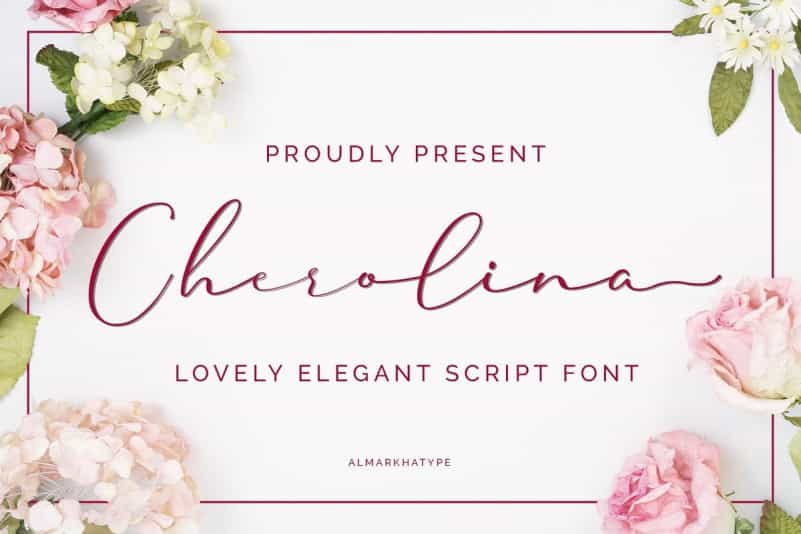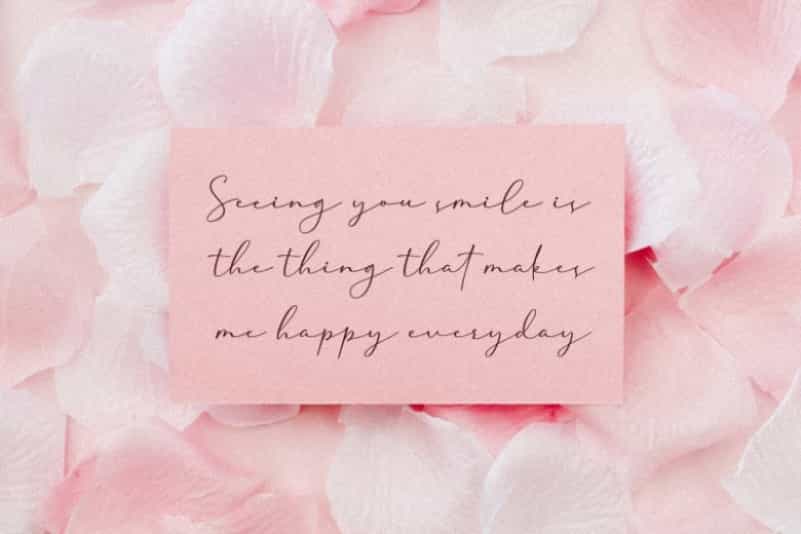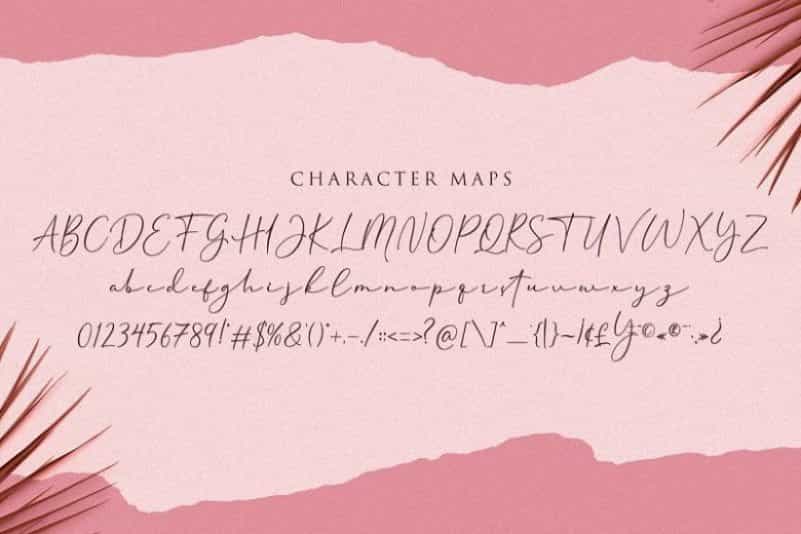
Cherolina – Beautifully Elegant Script Font by Almarkhatype. “Cherolina” has all the characters in upper and lower case, numbers, special symbols of different languages as well as punctuation. Also it includes: -short lowercase beginning and ending swashes (this is so perfect for invitations, monograms) -lowercase ending swashes which serve to connect two words or letters.